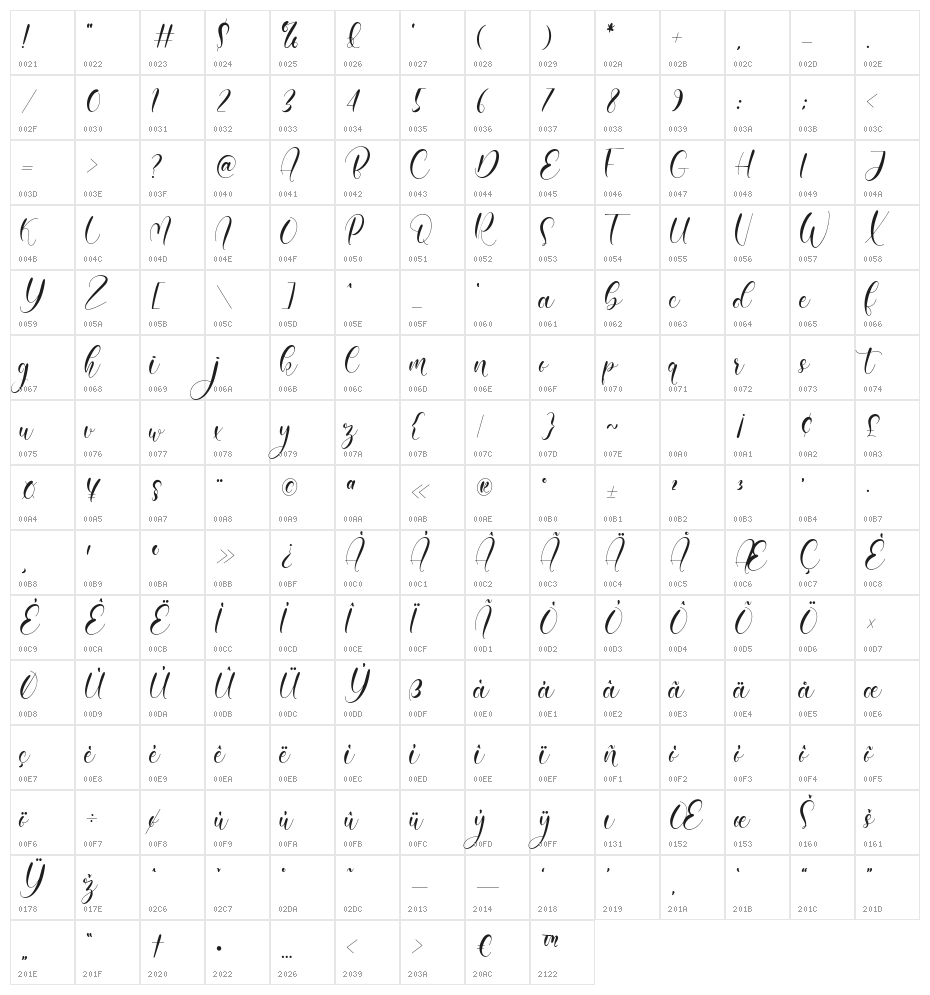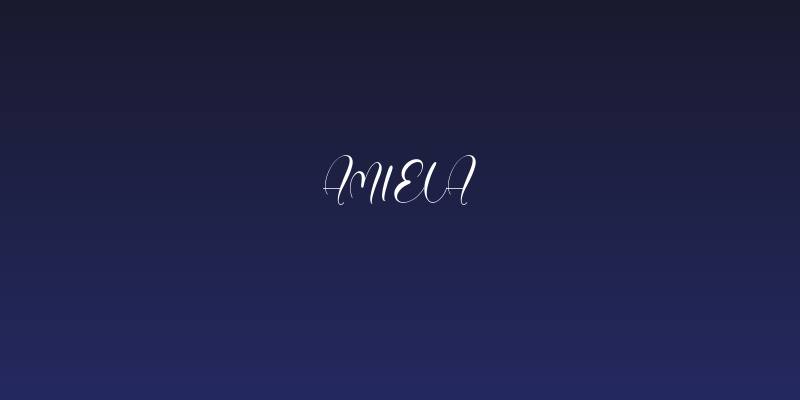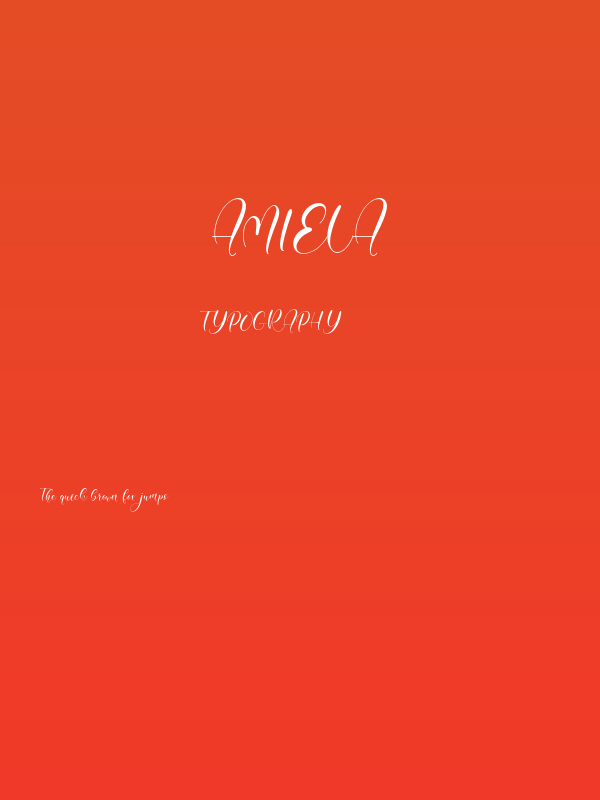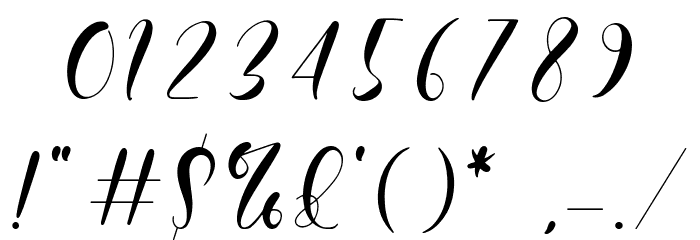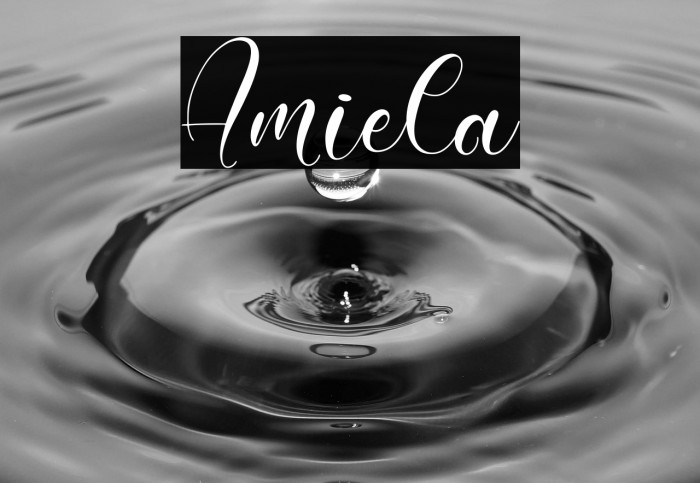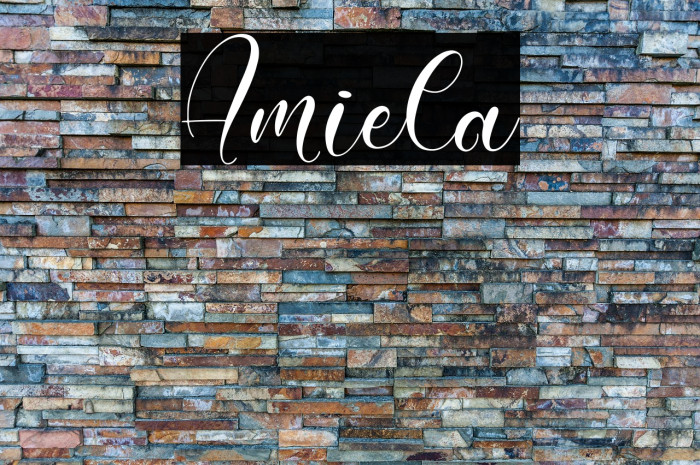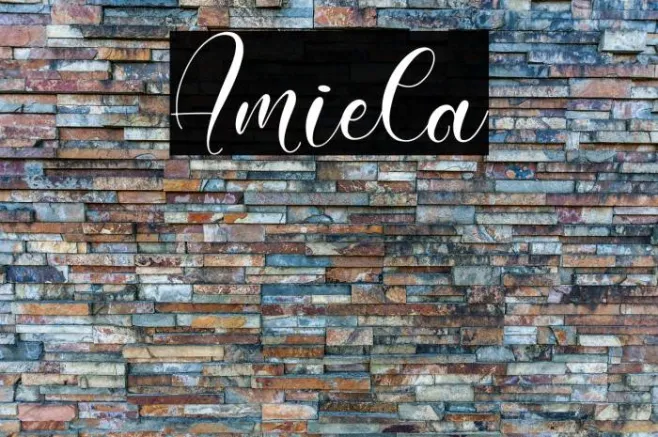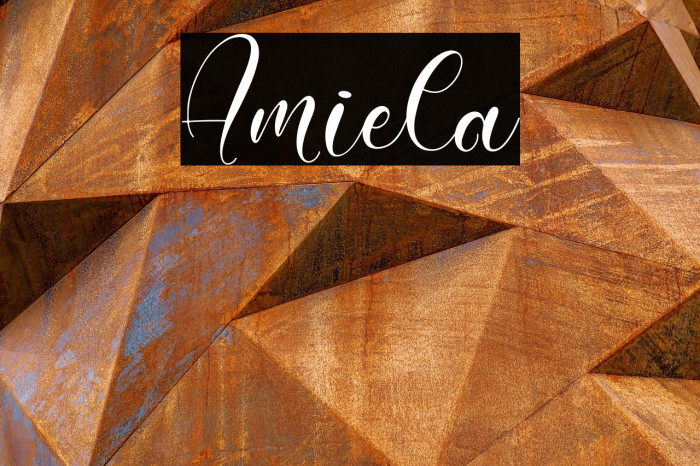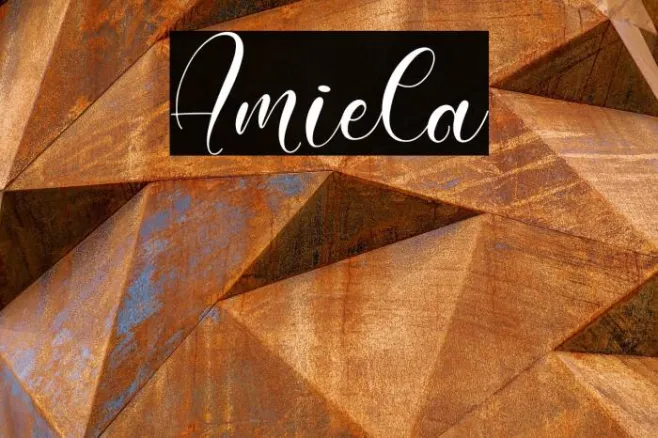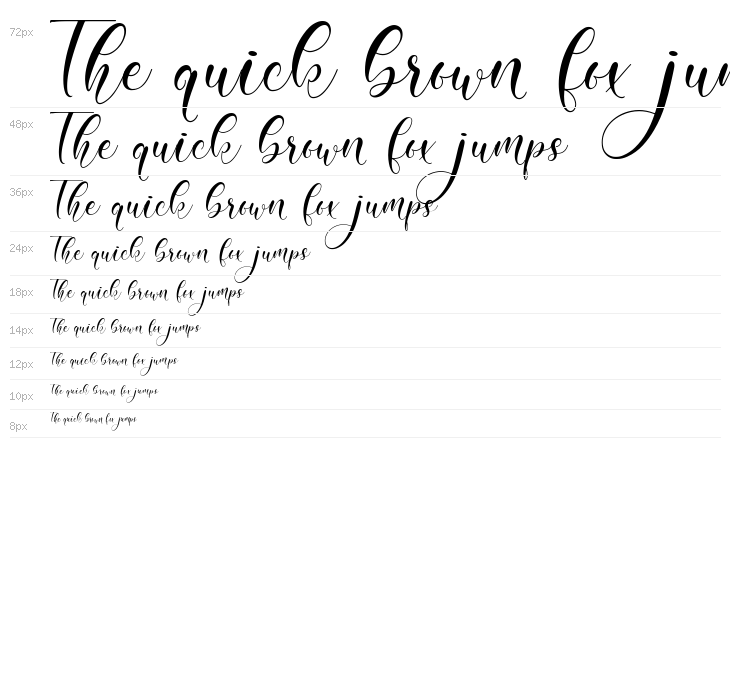
Amiela Font
Amiela Description
This font features an elegant and flowing script style, characterized by its smooth, cursive strokes and graceful curves. The uppercase letters are particularly ornate, with sweeping lines and loops that convey a sense of sophistication and fluidity. The lowercase letters maintain a consistent style, offering a harmonious blend of formality and artistic flair. Numbers and special characters are crafted with the same attention to detail, ensuring a cohesive appearance across all glyphs. The overall design is both decorative and legible, making it suitable for a variety of creative applications.
| Proposed Projects | Ideal for wedding invitations, elegant branding, greeting cards, and decorative headlines. |